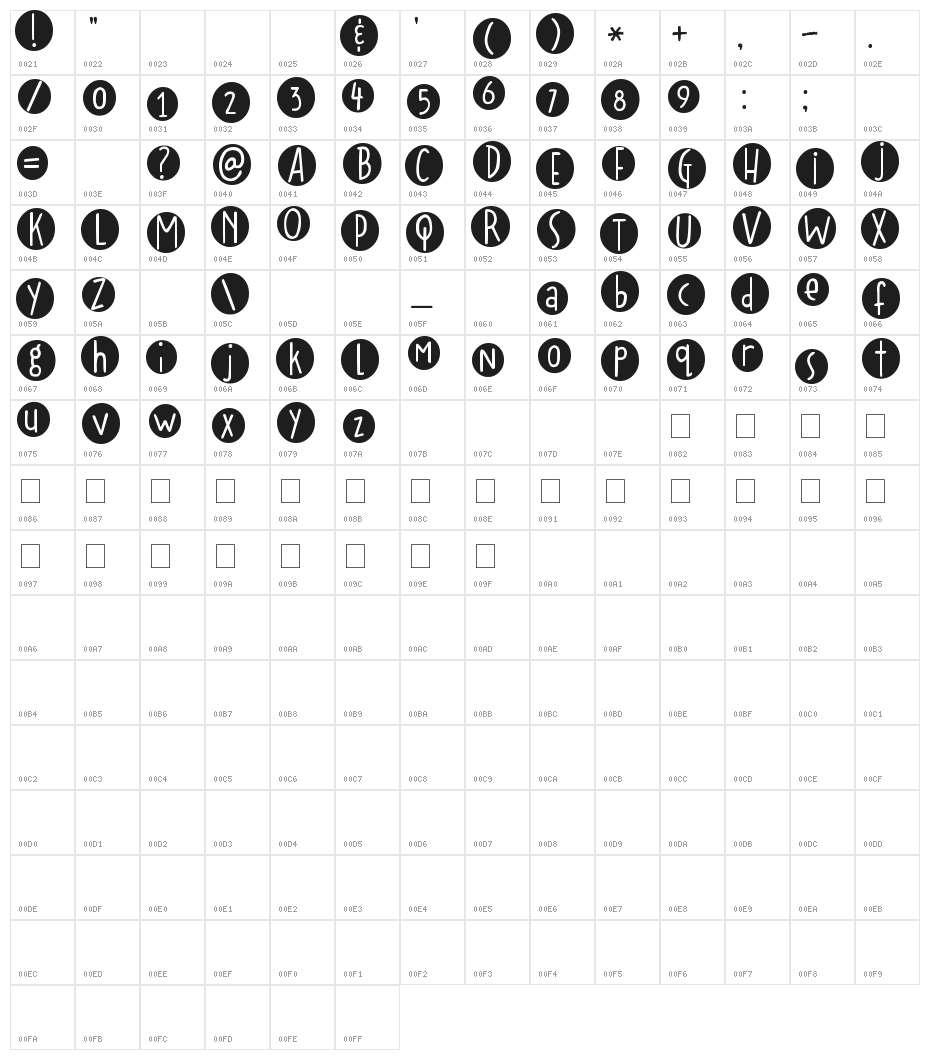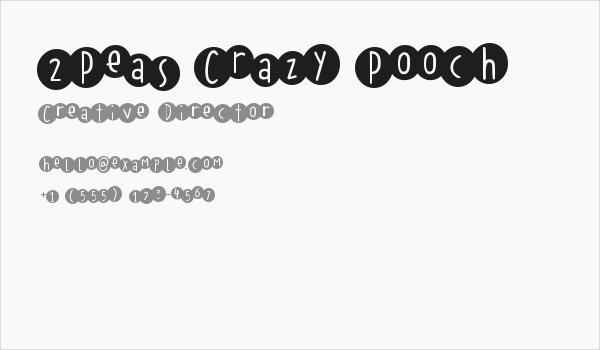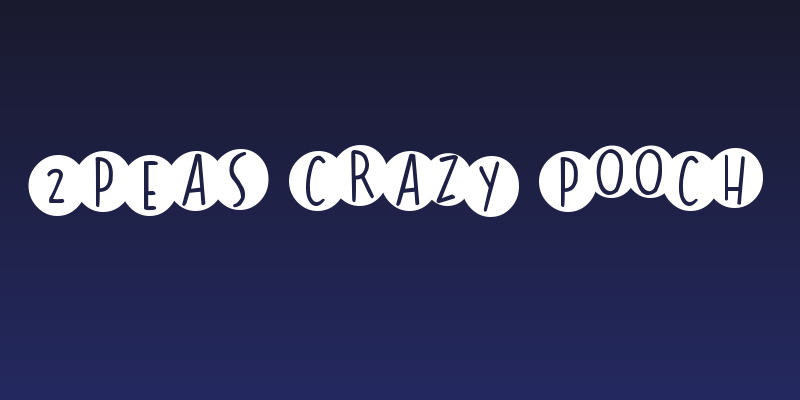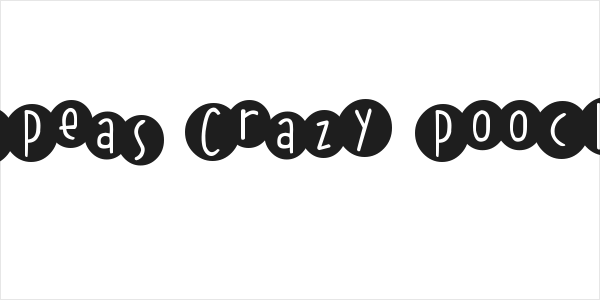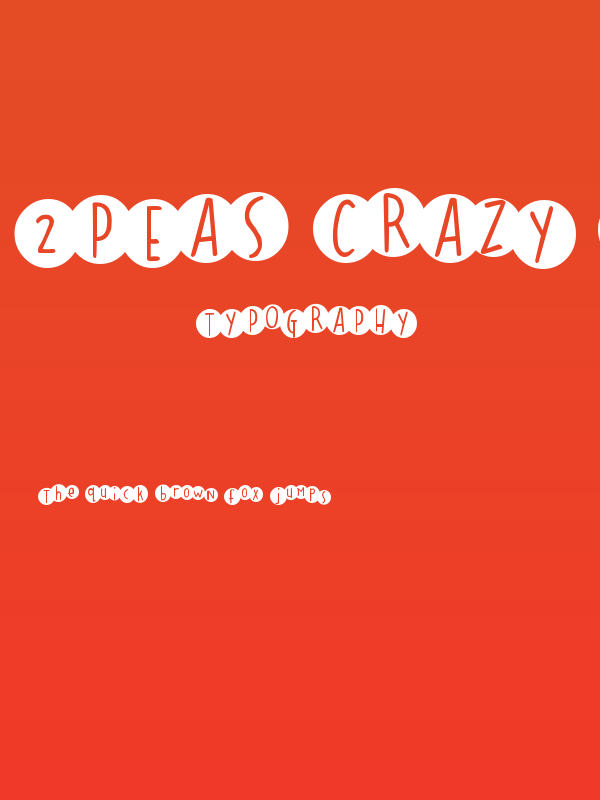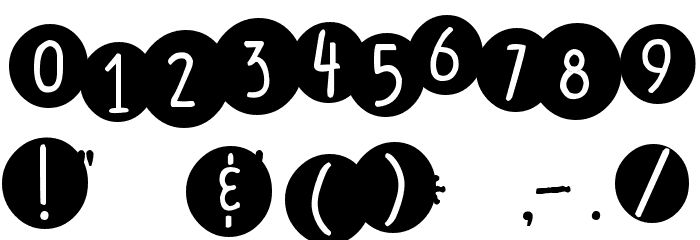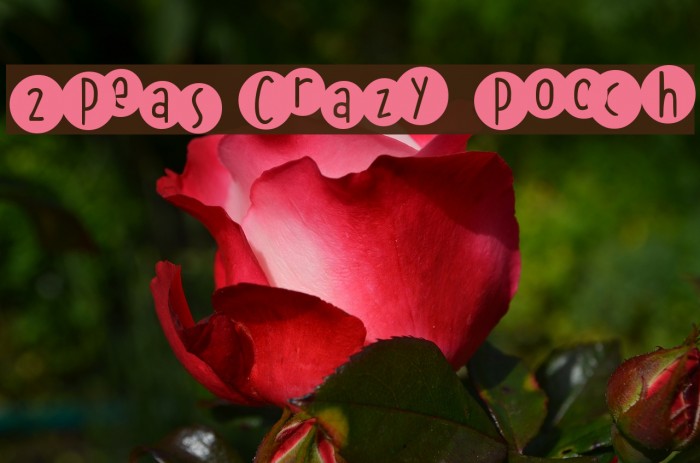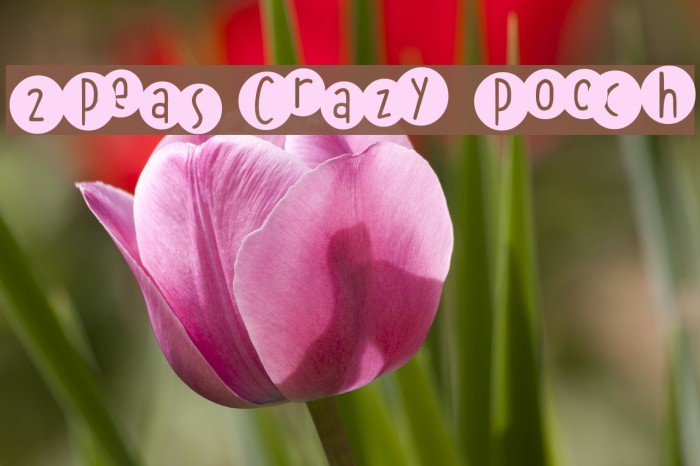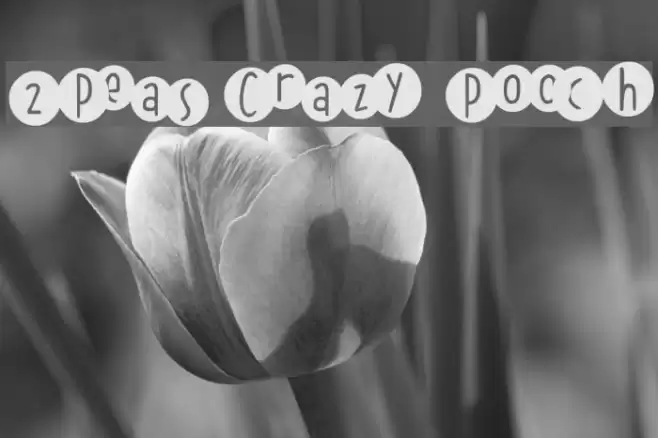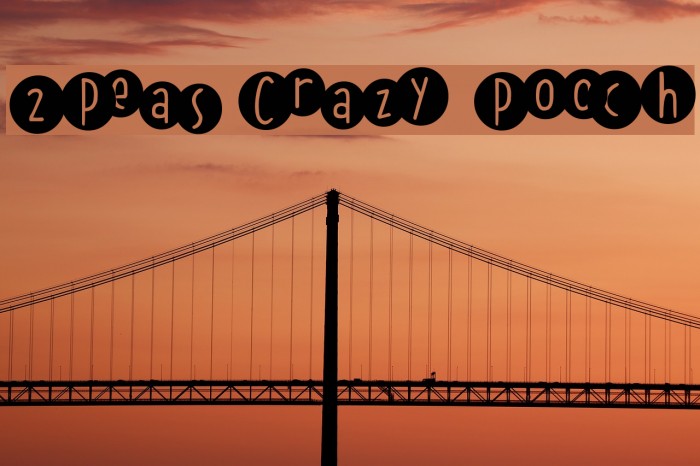
2Peas Crazy Pooch Font
2Peas Crazy Pooch Description
This playful and whimsical font features characters enclosed in circular shapes, creating a unique and eye-catching design. The letters are slightly irregular, adding a fun and quirky touch to the overall appearance. The font includes both uppercase and lowercase letters, numbers, and a selection of special characters. Its bold and decorative style makes it stand out, perfect for projects that require a lively and informal look. The characters are evenly spaced, ensuring readability while maintaining its distinctive style.
| Overall Style | Playful, Whimsical |
| Proposed Projects | Ideal for children's books, playful branding, party invitations, and creative posters. |